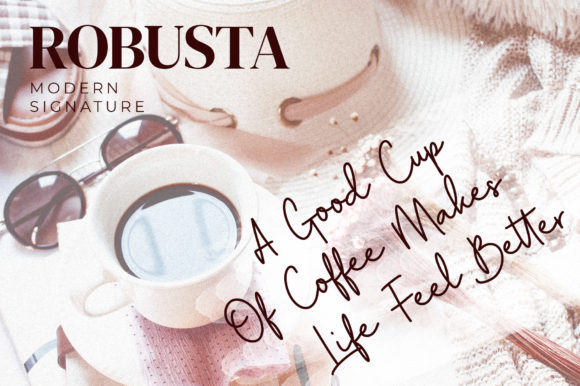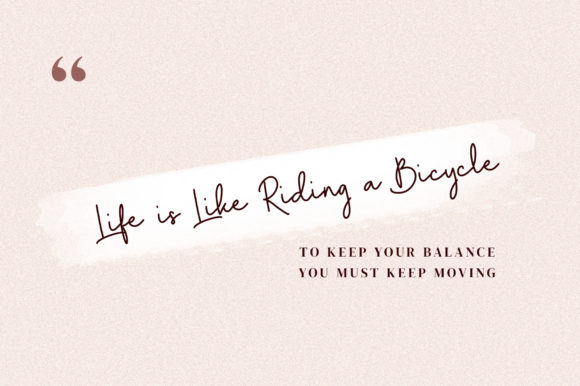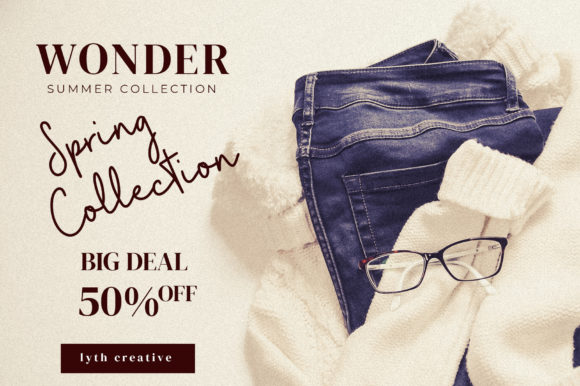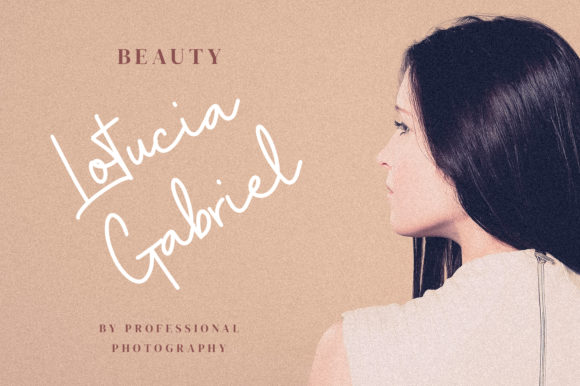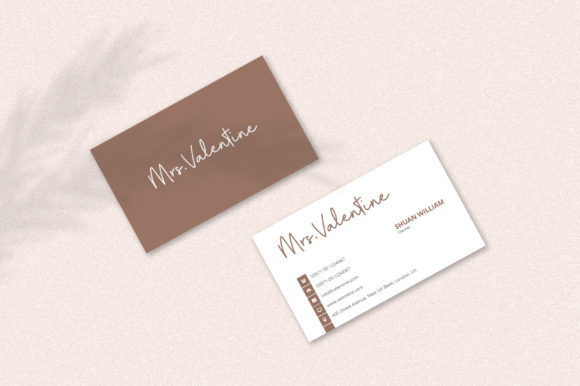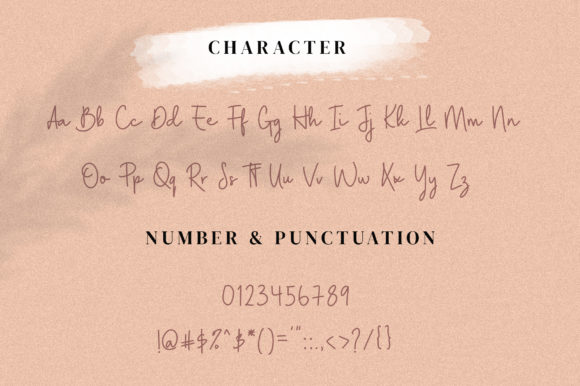
Regitha Aston Font
About Regitha Aston Font
Regitha Aston is an exciting handwritten font with signature style. Fall in love with its elegantly playful nature!